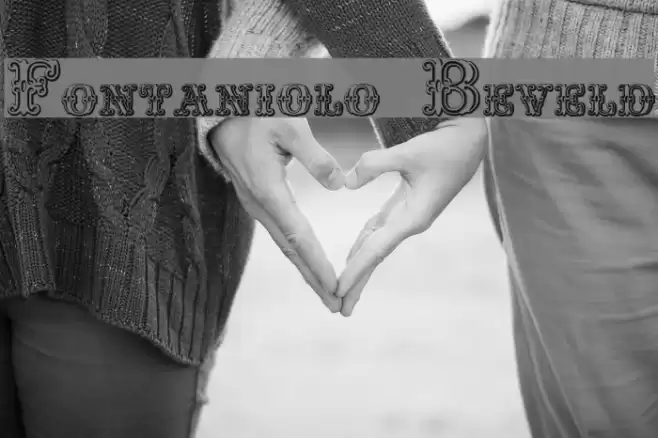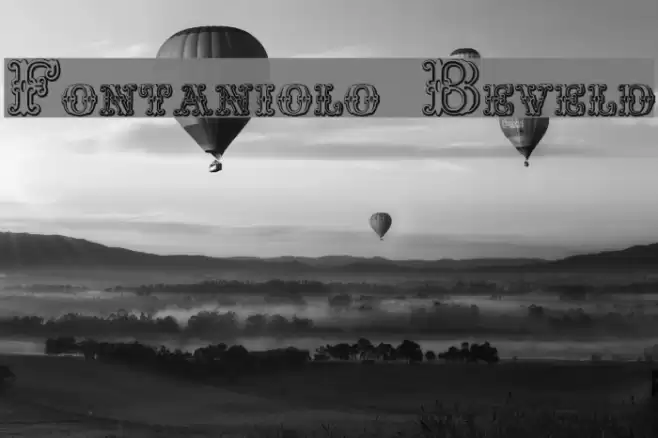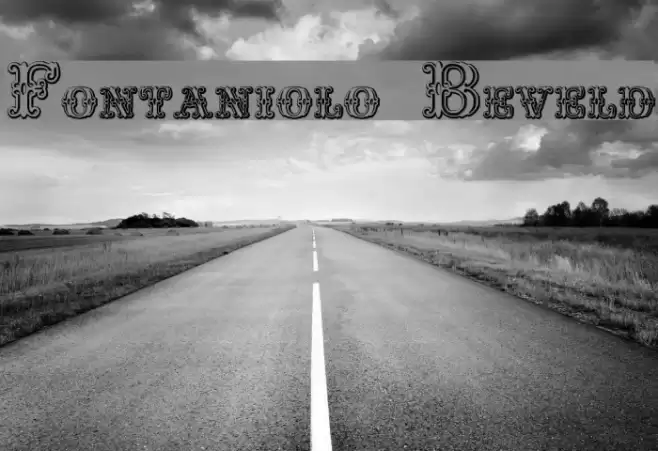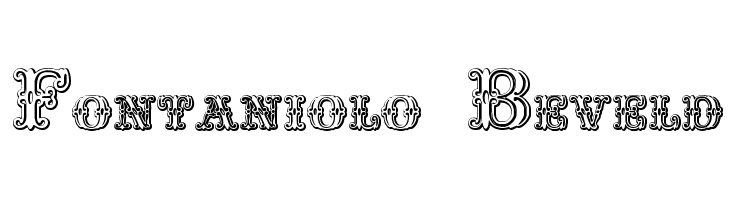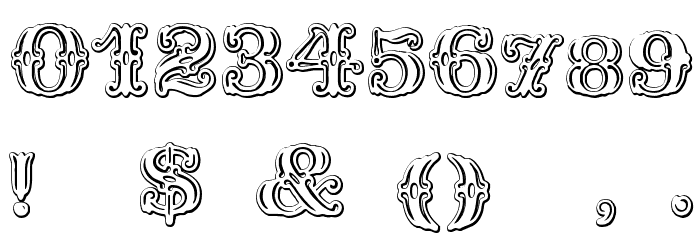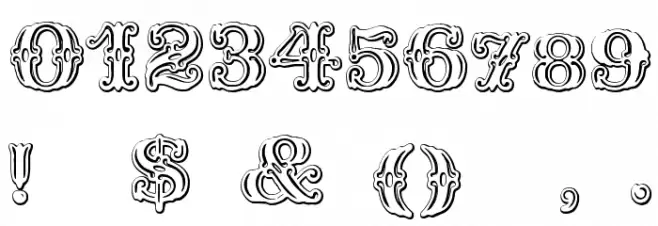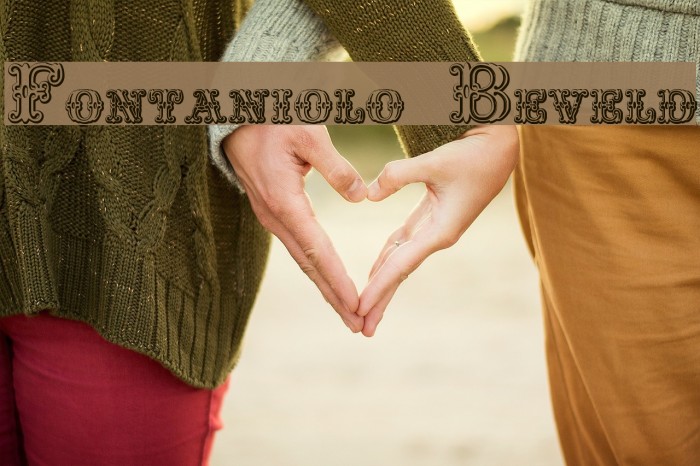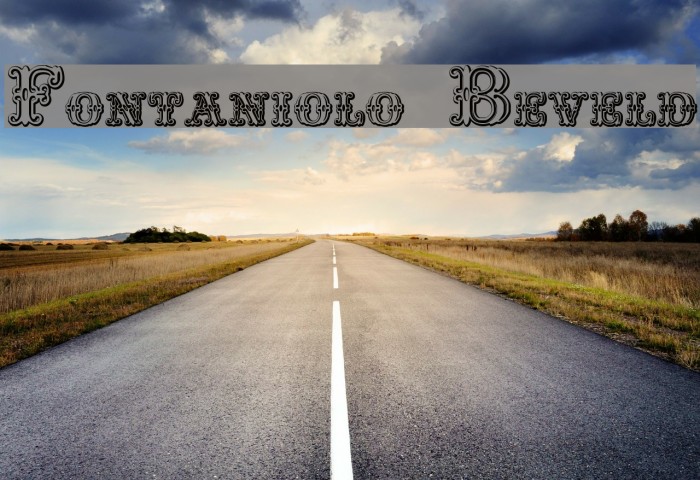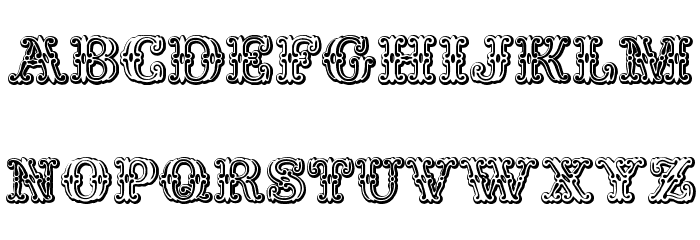
Fontaniolo Beveld Font
Fontaniolo Beveld Description
This font features a bold and decorative style with intricate beveled edges that create a three-dimensional effect. The characters are highly stylized, with ornate detailing that gives them a vintage and artistic appearance. The uppercase letters are particularly elaborate, while the numbers and special characters maintain the same ornate style. The font's unique design makes it stand out, with each character having a distinct personality. The overall aesthetic is reminiscent of classic signage or vintage posters, making it suitable for projects that require a touch of elegance and flair.
A bold, decorative font with intricate beveled edges and a vintage flair from Uncategorized fonts.
- Proposed Projects: Ideal for vintage-themed posters, signage, branding, and decorative invitations.
- Overall Style: Vintage